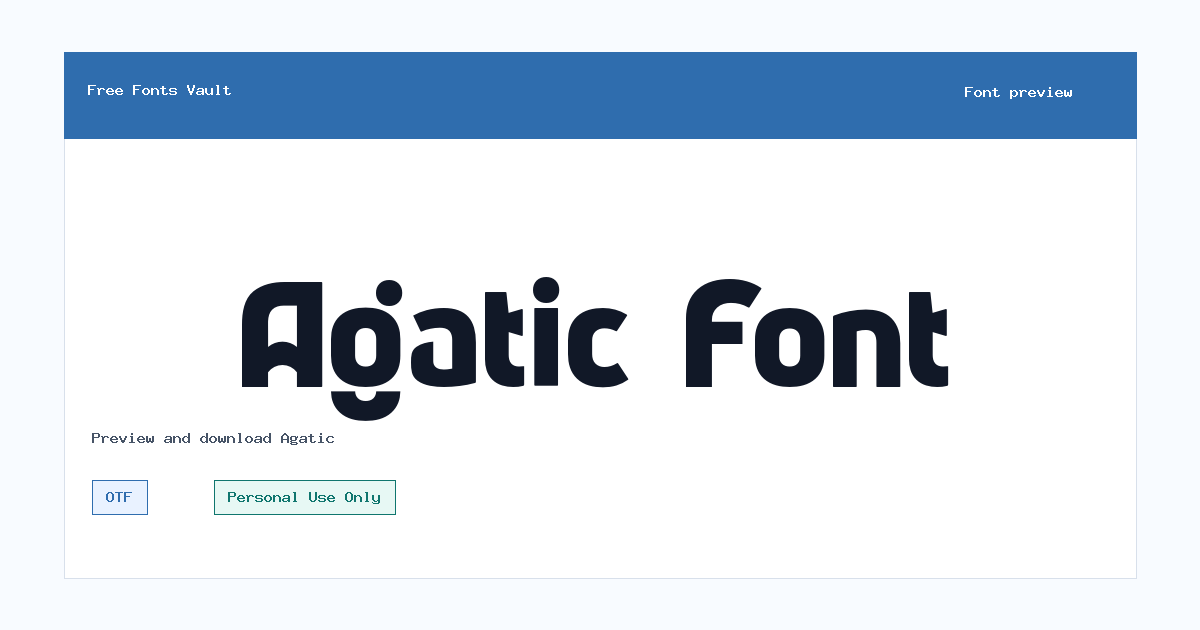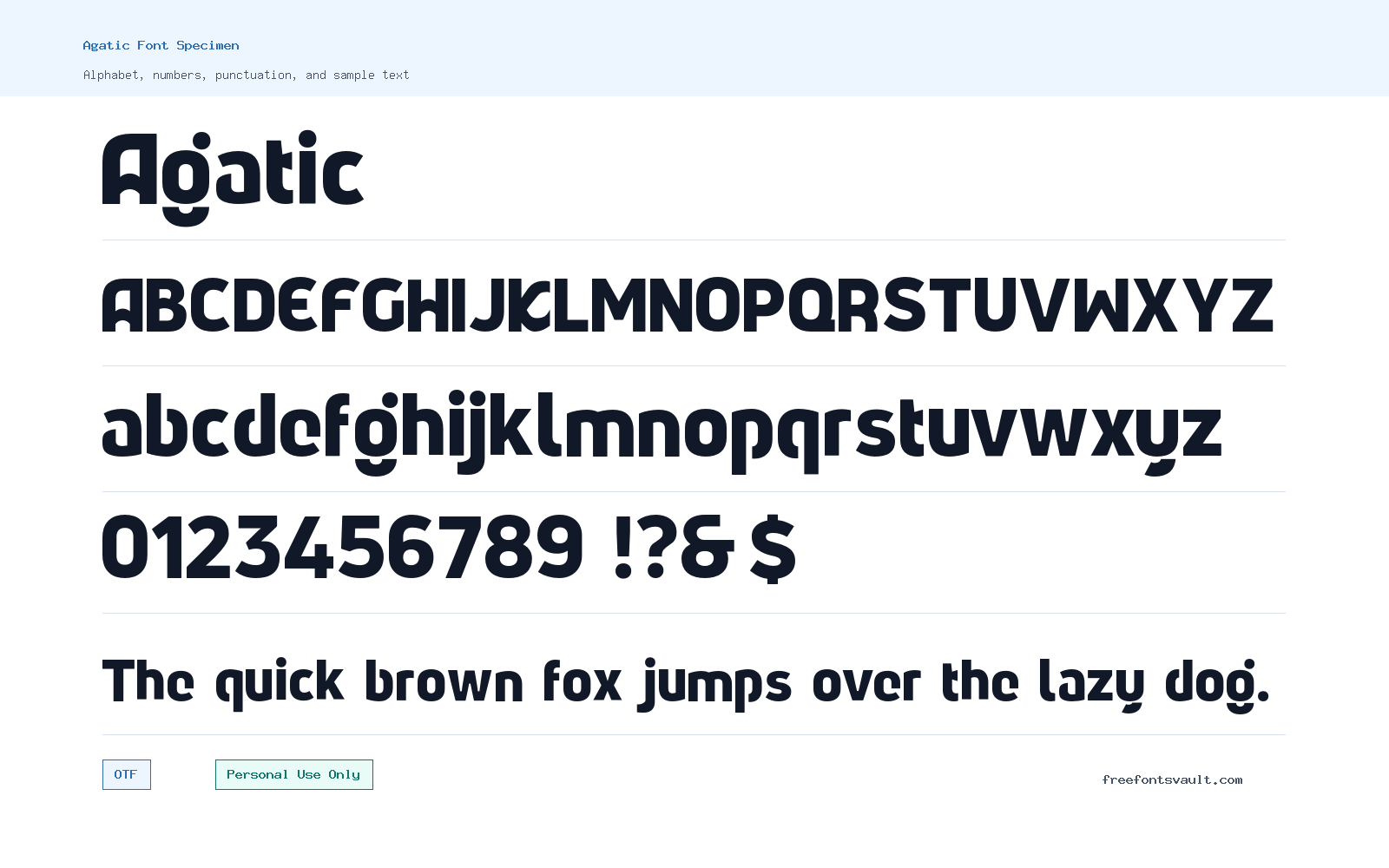
Agatic
Agatic font.
Agatic is a sans serif font with a clean, straightforward look that works best when you need clear lettering without heavy decoration. It is marked for personal use only, so it is a good choice for testing ideas, student work, mood boards, and non-commercial design drafts.
About Agatic Font
Agatic keeps the focus on readable letterforms rather than decorative effects. Because the available style is a regular OTF file, it is easy to test in common design tools for headings, logo sketches, posters, social graphics, and web layout mockups. The normal weight gives it enough presence for short display text while still staying simple enough for supporting labels and clean title blocks. If you are comparing sans serif fonts for a modern layout, Agatic is worth previewing with your own wording before deciding whether it fits the tone of the project.
Use the preview area to test the exact words you plan to design with, especially if you are working on a logo, brand name, product label, or poster headline. Short text will show the font’s spacing, rhythm, and overall personality more clearly than a long paragraph. Try it in uppercase, lowercase, and title case, then check how the letters sit together in names with repeated characters or narrow shapes. For web mockups, Agatic can help you explore a clean sans serif direction, but the license note matters: do not use it in a live commercial project unless you have confirmed or purchased the proper rights from the font owner.
- Clean normal-weight lettering that works best for short text, headings, logo drafts, and display-style design tests.
- Simple visual tone that can pair well with more expressive display fonts or with a neutral serif for contrast.
- Logo drafts and wordmark experiments where you want a simple sans serif base before refining the design.
- Poster titles, flyer headings, and social media graphics that need clean short text.
- Web and app mockups where a plain sans serif look is needed for navigation labels, cards, or section headings.
- Pairing tests with script, serif, or decorative fonts where Agatic can act as the calmer supporting typeface.
Start by previewing Agatic with the real words from your design. For logos, test tight and loose letter spacing, then check whether the wordmark remains clear at small sizes. For posters and social posts, use it for short headlines rather than long blocks of copy. In web mockups, compare it with a highly readable body font, since a single regular style may not cover every typographic need. If you pair it with another font, choose contrast rather than similarity: a classic serif can add editorial balance, while a script or hand-drawn display face can bring personality while Agatic keeps supporting text clean.
What type of font is Agatic?
Agatic is listed as a sans serif font. The available file is a regular OTF style with normal weight.
What is Agatic best used for?
It is best tested for short text such as logo drafts, headings, posters, social graphics, and web mockups. Preview your own wording before using it in a finished design.
Does Agatic work well for body text?
Agatic may be useful for small sections or mockup text, but it is better to test it carefully before using it for long reading. A dedicated body font may be more practical for paragraphs.